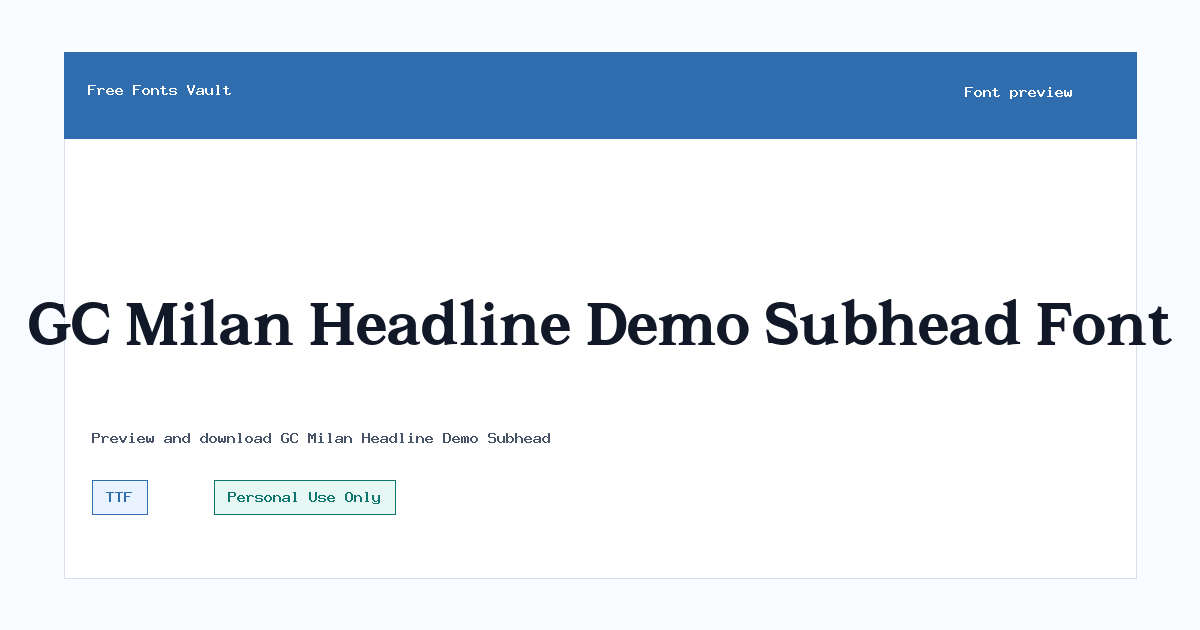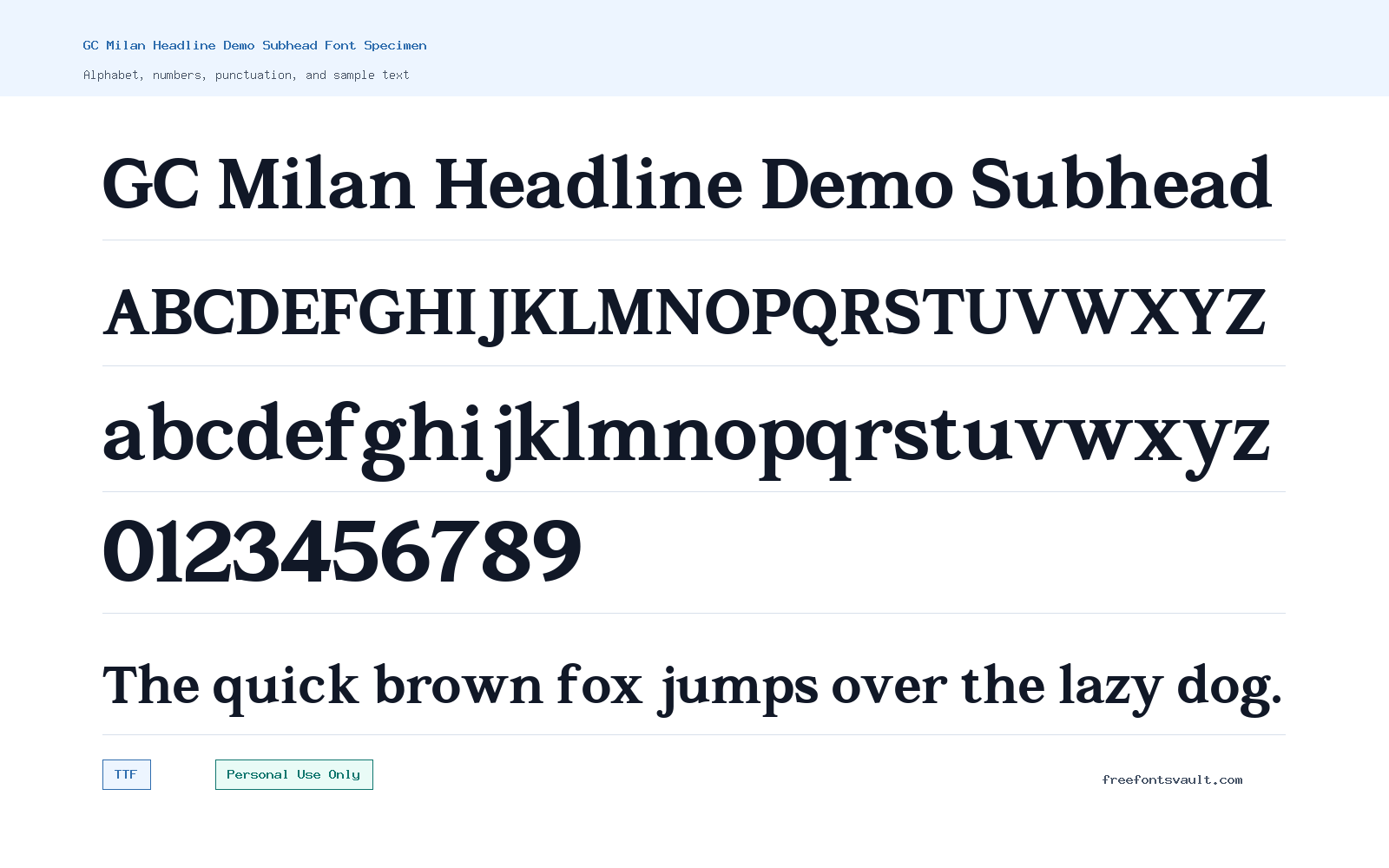
GC Milan Headline Demo Subhead
GC Milan Headline Demo Subhead font preview showing the family name
GC Milan Headline Demo Subhead Font
GC Milan Headline Demo Subhead font specimen showing alphabet, numbers, and sample text
• Designer Zainaldi Ibrahim of Glyphonic
• Foundry Glyphonic
GC Milan Headline Demo Subhead font.
GC Milan Headline Demo Subhead is a serif display font made for larger text where the letter shapes can be seen clearly. It suits visitors looking for a headline or subhead style to test in posters, title graphics, editorial mockups, and personal design drafts.
About GC Milan Headline Demo Subhead
GC Milan Headline Demo Subhead has the role of a display serif rather than a long-reading text face. The “Headline” and “Subhead” naming points to use in prominent type, especially short lines that need more presence than body copy. In the preview, test it with page titles, section headings, magazine-style cover lines, quote cards, and brand concept text. Keep the sample words realistic: a three-word title, a short phrase, and one longer subheading will show whether the spacing and proportions fit your layout.
• Headline and subhead-focused serif style for short, prominent text
• Personal poster drafts, title graphics, and editorial-style mockups
• Subheadings, pull quotes, cover lines, and visual identity experiments
GC Milan Headline Demo Subhead is credited to Zainaldi Ibrahim of Glyphonic.
What kind of font is GC Milan Headline Demo Subhead?
It is a TTF serif display font intended for headline and subhead-style text rather than long body copy.
Who designed GC Milan Headline Demo Subhead?
The font is credited to Zainaldi Ibrahim of Glyphonic.